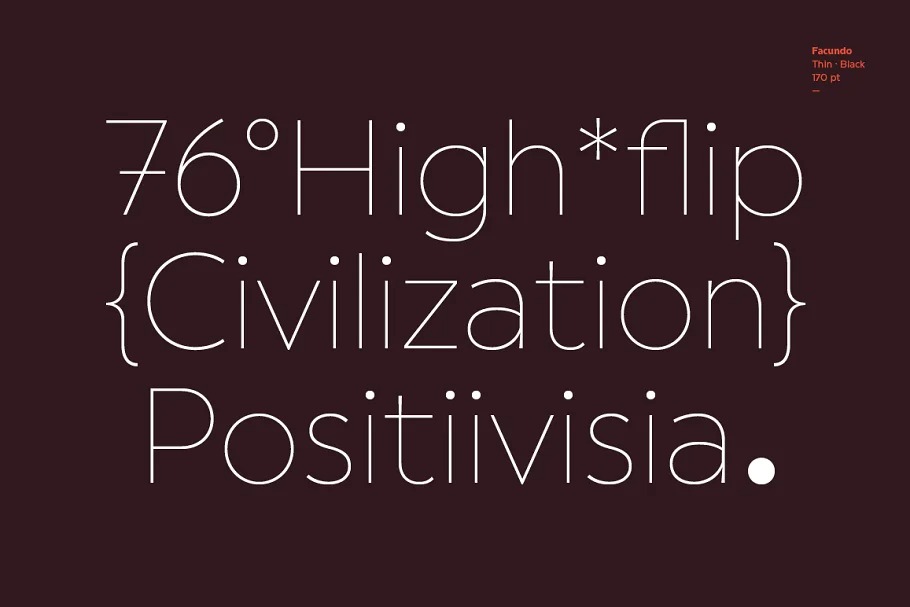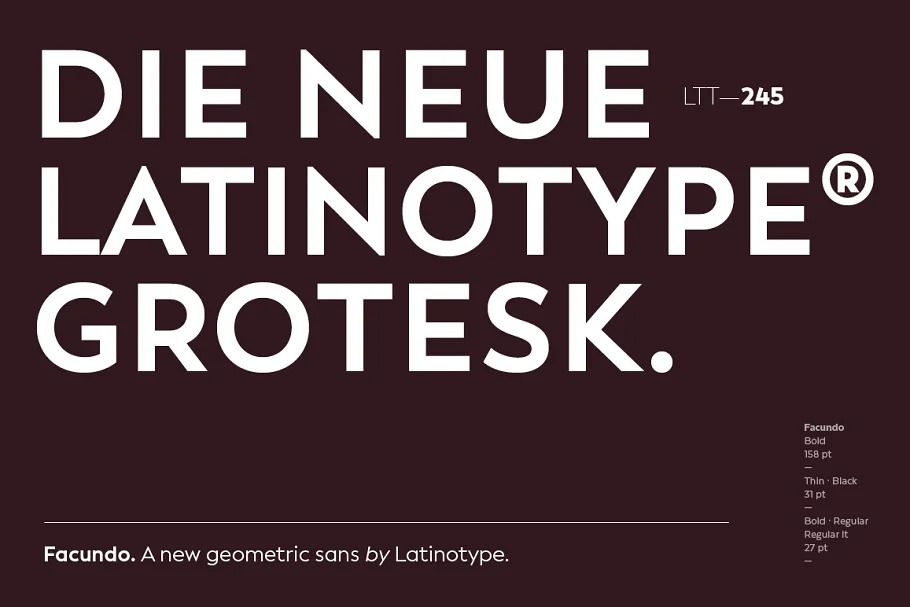
Facundo Font Family
Facundo Sans Serif Font
This is a minimal and neat sans serif typeface family. It’s designed and shared by Latinotype. Facundo may look familiar but has a modern and fresh feel, giving your designs a friendly, and at the same time, renewed and singular appearance.
Facundo comes in 7 weights, plus matching italics, well-suited to meet any corporate, brand identity or web design needs. The font contains a set of 715 characters which support over 200 languages that use both Cyrillic and Latin scripts.